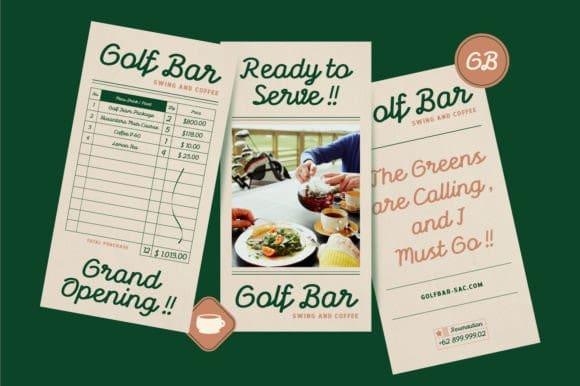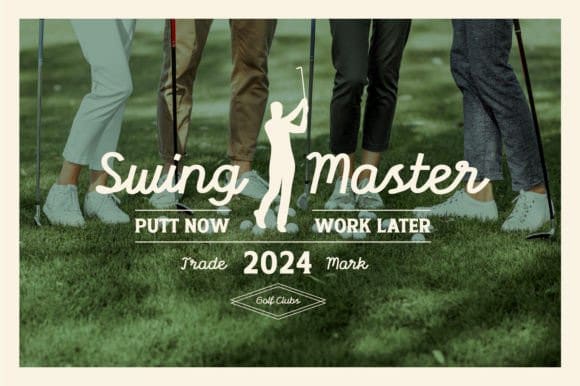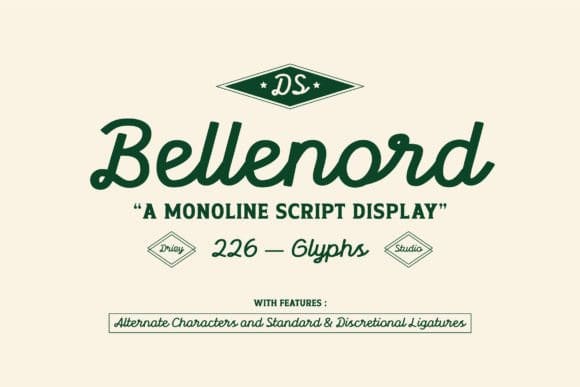
Bellenord Monoline Font
Bellenord Monoline Font is a classic Golf–Elegant Sport (Classic Taste) inspired touch. Perfect for embodying the sophistication and tradition of the sport, this font combines graceful curves with a refined aesthetic, making it an ideal choice for upscale golf event invitations, club signage, merchandise, and more. Capture the essence of golf’s elegant sport with Bellenord’s classic taste, and bring a touch of vintage charm to your next project.